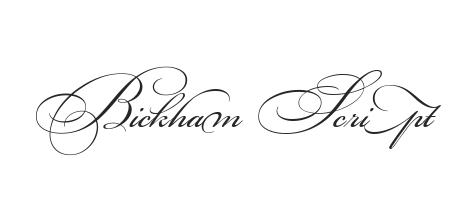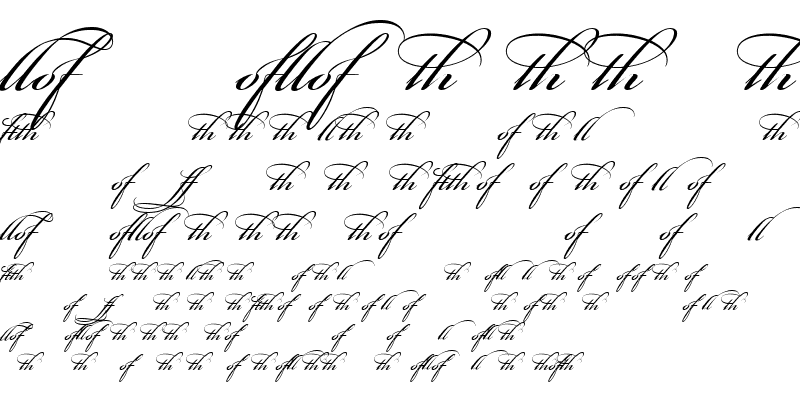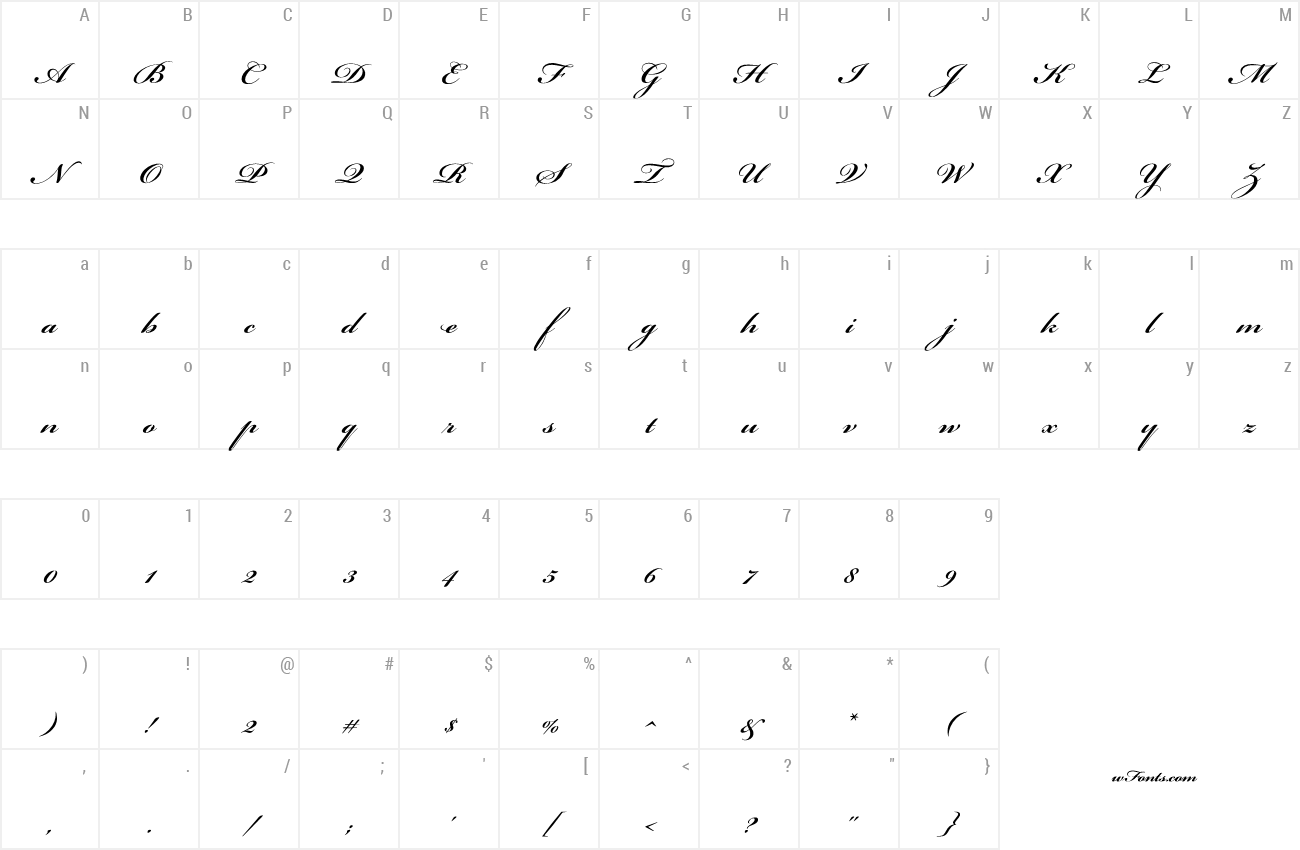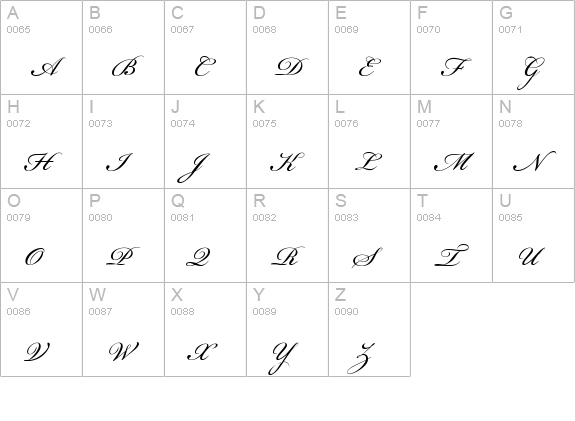
This typeface is inspired by the writing style of george bickham. The font bickham script pro bold is also perfect for branding projects. Adobe fonts is the easiest way to bring great type into your workflow, wherever you are.
This calligraphy kind serif font designed with the aid of bernd montag in 2007 has become one of a few classic based web fonts. Richard lipton’s bickham script is a flowing, formal script typeface based on the lettering of 18th century writing masters, as rendered in the unparalleled engravings of. Bickham font is the display script font typeface and richard lipton designed this font.
Check it for free with typograph. This typeface has been the most classic and formal texture available at the time. About the font bickham script pro bold.